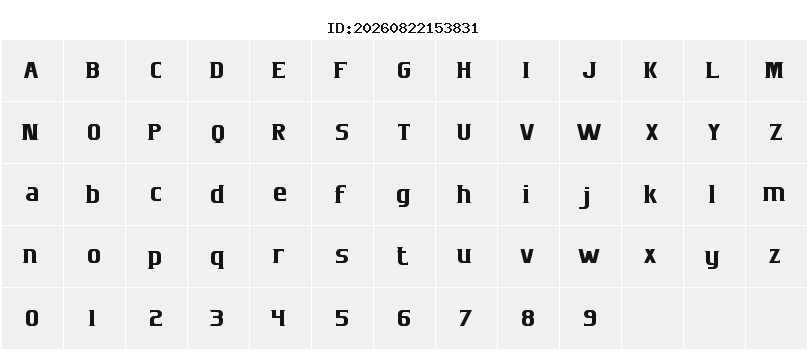
Scones and Crossbows Preview
• Font Name: Scones and Crossbows
• Font ID: FontStruct Scones and Crossbows
• Full Font Name: Scones and Crossbows Regular
• PostScript Name: Scones-and-Crossbows
• Character Count: 99
• Designer: NAL
• Description: “Scones and Crossbows” was built with FontStruct
About Scones and Crossbows.ttf
Scones and Crossbows.ttf is a modern, elegant sans-serif font designed for ultimate readability and visual harmony. Perfect for branding, headlines, web design, and print materials.